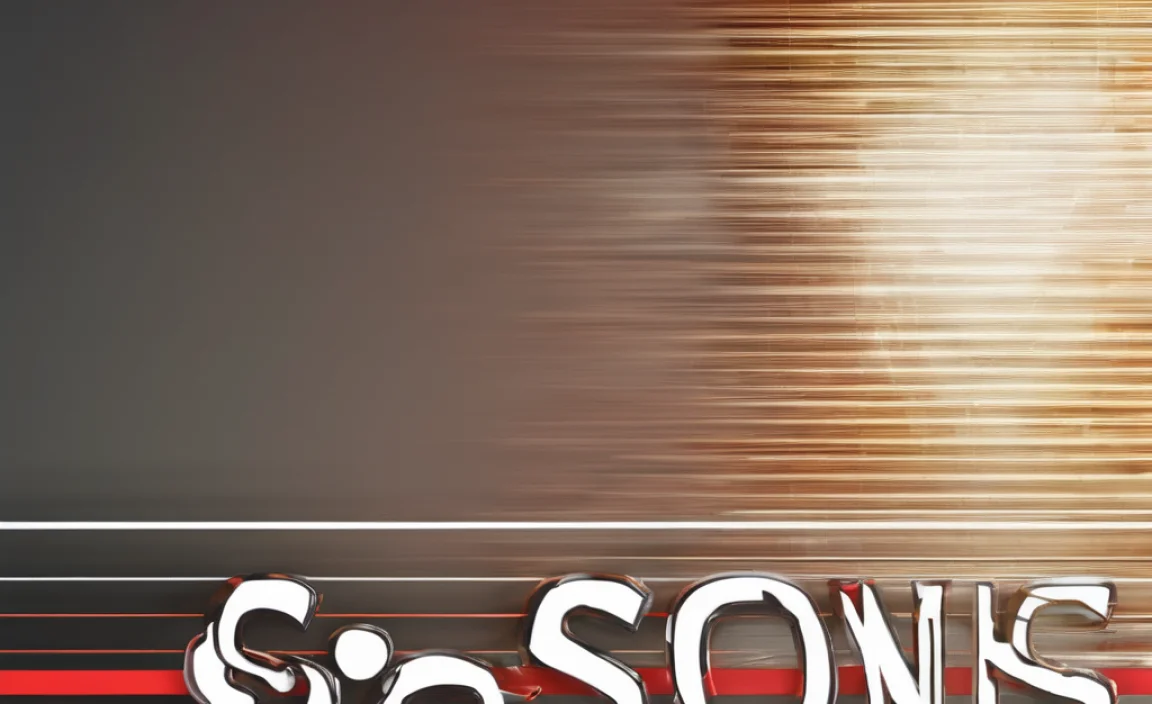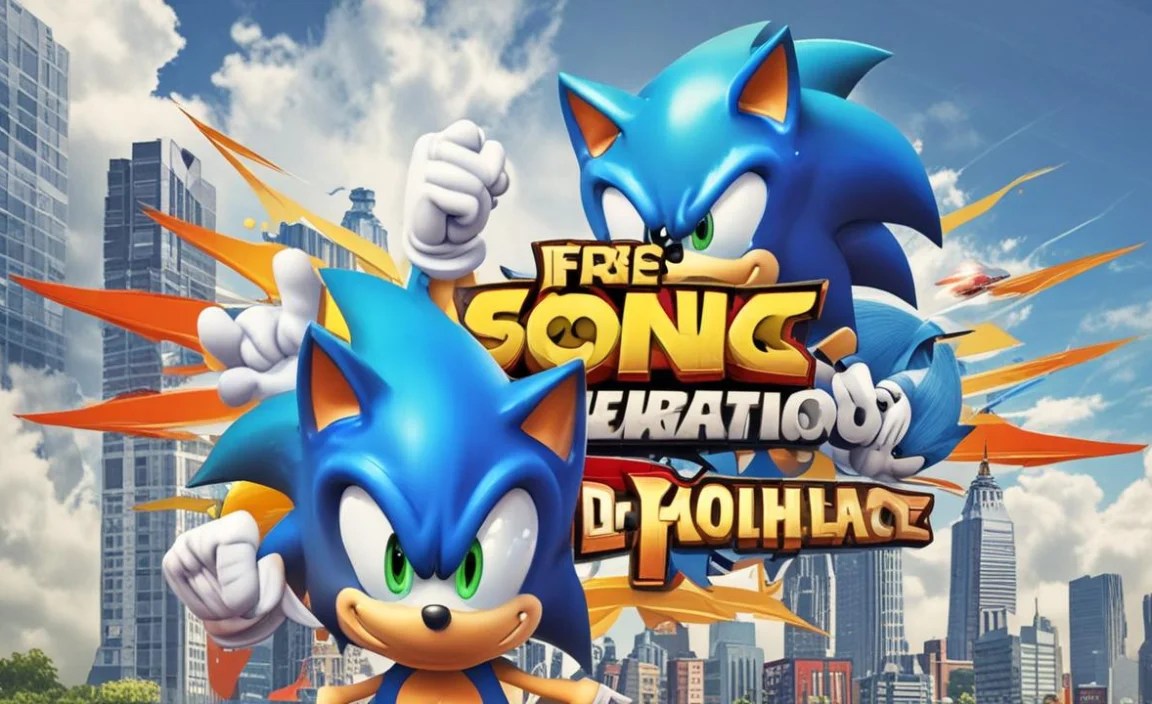
If you’re a fan of Sonic the Hedgehog and want to incorporate some iconic Sonic font into your personal projects, you’re in the right place. The Sonic Generations font brings the distinct style of the game to life. It features a bold, dynamic design that perfectly fits the Sonic Team aesthetic.
This font is a perfect choice for fan art, creating a custom logo, or simply paying tribute to Sonic Generations. You can download a remastered version of the style used in the game for free.
Font Family For Sonic Generations Logo
The Sonic Generations Font draws inspiration from the game’s logo and features a unique design. While Sonic Team hasn’t released an official font family, here’s an outline of the closest fonts used in the Sonic Generations logo:
- Font Name: Nise Sega Sonic (Main Font)
- Designer: ActSelect
- Styles & Weights:
- Regular (Regular weight)
- Bold (Bold weight)
- Italic (Italic style)
- Font Name: Block Heavy (for “Generations” text)
- Designer: Berthold
- Styles & Weights:
- Regular (Regular weight)
- Bold (Bold weight)
- Additional Fonts for Sonic Generations in other uses:
- Seurat (Menu Text)
- Regular (Regular weight)
- Britannic (Hub World)
- Regular (Regular weight)
- Seurat (Menu Text)
These fonts are often used for different parts of the game, like the logo and UI. The Nise Sega Sonic font is the most recognized one for Sonic Generations and Sonic the Hedgehog branding, while Block Heavy is more suited to the Generations part of the logo.
Features of the Sonic Generations Font
The Sonic Generations font mimics the sleek, angular shapes in the official game logo. Its bold lettering stands out, reflecting the fast-paced, action-packed nature of Sonic the Hedgehog. The font is perfect for creating headers, titles, and logos, especially if you’re looking to replicate the feel of the Sonic X Shadow Generations universe. It’s versatile enough for personal use and easily adaptable for various projects.
The font’s clean lines and geometric form easily integrate with other graphics or text. Whether working on a Sega-related project or simply looking to add fun, retro flair to your design, the Sonic Generations font will ensure your work stands out. Plus, it’s a great way to capture the essence of Sonic Frontiers without needing a high level of design skill.
Why Choose the Sonic Generations Font?
The Sonic Generations font isn’t just about nostalgia; it celebrates Sonic’s legacy. This font brings the iconic feel of the Sega Genesis into modern times. Whether you’re designing a Sonic-inspired project, creating a Sonic X Shadow Generations tribute, or simply enjoying your Sonic the Hedgehog fandom, this font helps you achieve your design goals quickly and easily.
The font’s readability makes it perfect for websites and Sonic game-themed content in English or Japanese. It’s ideal for creating designs related to Mario crossover content or paying homage to the beloved Sonic Team. This font is a must-have for any fan. Since it’s available as a free download, getting started is easy!
Ready to bring the world of Sonic into your designs? You can easily download the Sonic Generations font through various platforms, and it’s free for personal use. Simply visit the appropriate website, agree to the terms, and start using the font on your next project. Keep in mind that Sonic Team created this font for Sonic Generations, so if you plan to use it commercially, make sure to get proper credit.
Is The Sonic Generations Font Free To Use?
Yes, the font is free for personal use. For commercial use, you may need to obtain permission from the copyright holders.
Where Can I Download The Sonic Generations Font?
The font is on several websites dedicated to Sega and Sonic fan resources. Be sure to check the download terms.
Can I Use This Font On My Nintendo Switch Designs?
Absolutely! The Sonic Generations font can be used for any Sonic-related project, including those on the Nintendo Switch.
Can I Use This Font For A Sonic Logo?
Yes, you can use the Sonic Generations font to design your own Sonic logo for personal projects.
Does This Font Match The Sonic Generations Game Logo?
Yes, it’s a close match to the font used in Sonic Generations, making it perfect for fan projects.
What Is The History Of The Sonic Generations Font?
The font was used in the logo of Sonic Generations and other Sonic Team games, capturing the essence of both classic and modern Sonic.
Are There Other Fonts Used In Sonic Games?
Yes, other fonts are used throughout Sonic titles, such as Metal Sonic and Knuckles fonts, each matching the game’s theme.
What Platforms Support This Font?